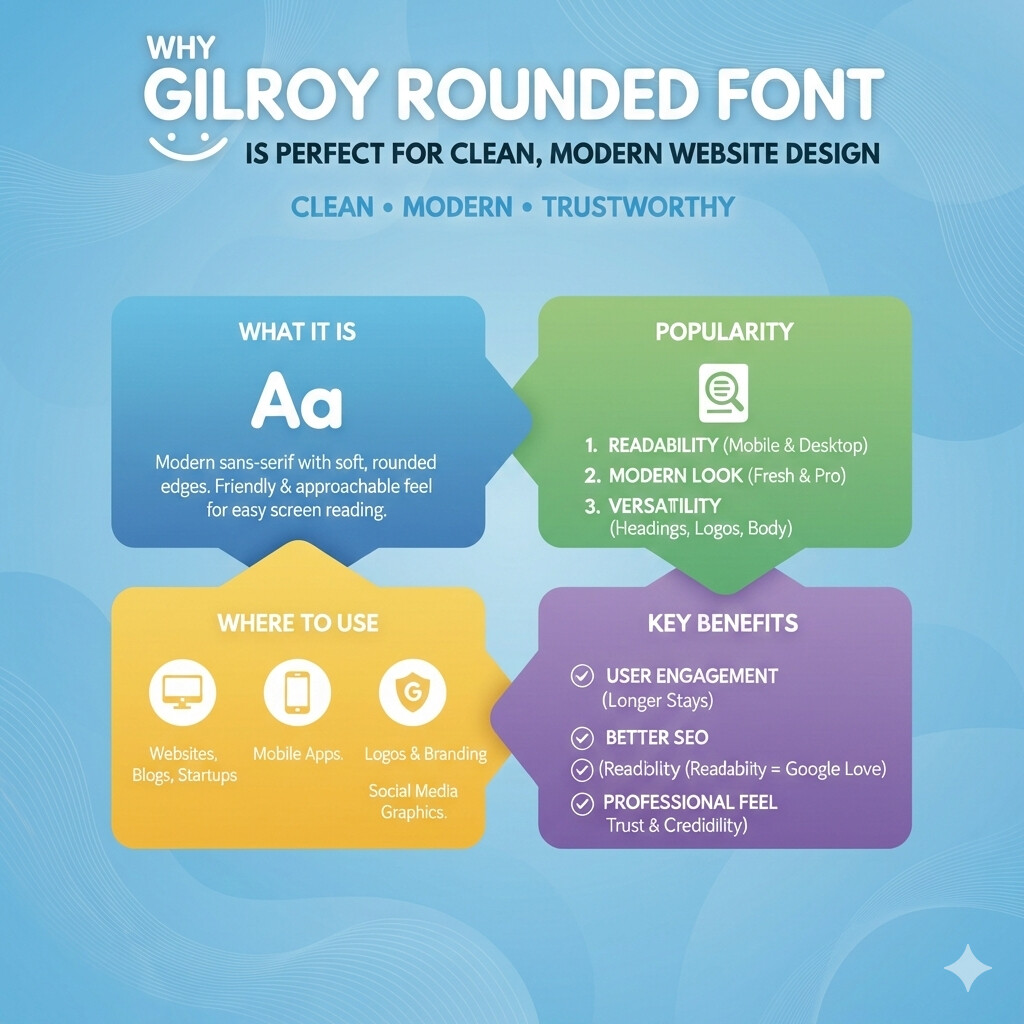
i think gilroy rounded font is one of those fonts that looks simple but feels premium when we actually use it in real projects. When I first started working on website design I was confused about fonts. That is when I found gilroy rounded font and honestly it changed the way I design.
We are living in a digital world where fonts matter a lot. If the font is soft, clean and friendly users stay longer. That is why we should understand the gilroy rounded font properly before using it.
What Is Gilroy Rounded Font
Gilroy rounded font is a modern sans serif font with smooth rounded edges. The letters are soft and clean which makes reading easy on screens. The rounded style removes sharp corners and gives a friendly feel to the text.
I noticed that when I used gilroy rounded font on landing pages users stayed longer. That showed me that design really affects behavior.
We can say that gilroy rounded font is perfect for modern brands, startups, apps and websites that want a clean and trustworthy look.
Why Gilroy Rounded Font Is So Popular
There are many reasons why gilroy rounded font is popular today.
The first reason is readability. The font is easy to read on mobile and desktop screens.
The second reason is its modern look. Many designers want a font that feels fresh and professional.
The third reason is versatility. We can use it for headings, buttons, logos and body text.
I think if a font can be used in many places then it saves time and effort.
We should choose fonts that work everywhere and gilroy rounded font does that well.
My Personal Experience With Gilroy Rounded Font
When I was working on my first tech blog I was using a default font. I decided to test gilroy rounded font after seeing it on a SaaS website.
After changing the font I saw a clear difference. The site looked more friendly and professional. Text felt smooth and users gave better feedback.
That experience taught me that fonts are not just decoration. They are part of communication.
If we want users to trust us we should use fonts that feel clean and honest.
Where You Can Use Gilroy Rounded Font
Gilroy rounded font can be used in many design areas.
Websites
I think gilroy rounded font is perfect for websites especially blogs, startups and portfolios. The rounded edges make long reading easy and pleasant.
Mobile Apps
Mobile screens need clear fonts. Gilroy’s rounded font works great because letters are well spaced and smooth.
Logos And Branding
If a brand wants a friendly modern image this font is a great choice. Many modern brands use rounded fonts to feel approachable.
Social Media Graphics
Text on social media should be easy to read quickly. Gilroy’s rounded font helps catch attention without hurting the eyes.
Gilroy Rounded Font Vs Other Rounded Fonts
There are many rounded fonts available but the gilroy rounded font stands out.
Gilroy’s rounded font keeps a balance between professional and friendly.
Gilroy rounded font works for both serious and casual projects.
That balance is the main reason I prefer it over others.
How To Choose The Right Weight Of Gilroy Rounded Font
Gilroy’s rounded font comes in different weights like light regular and bold.
For body text I think regular weight works best.
For headings bold weight gives strong focus.
We should keep it simple and consistent.
Common Mistakes When Using Gilroy Rounded Font
I have made these mistakes before so I want to help you avoid them.
Using very small font size Using too many font weights Using low contrast colors Using it without checking license
If we avoid these mistakes the font will perform much better.
Who Should Use Gilroy Rounded Font
Gilroy rounded font is ideal for Bloggers Designers Startup owners App developers Content creators
If your goal is clarity and trust then you should consider this font.
What type of font is gilroy rounded font?
I think gilroy rounded font is a modern sans serif font with soft rounded edges that improve readability.
Conclusion
I think gilroy rounded font is a smart choice for anyone who wants a clean, modern and friendly design. Through my own experience I learned that fonts are not just visual elements. They are communication tools.
We should always choose fonts that help users read easily and feel comfortable. Gilroy’s rounded font does exactly that.
If you are building a website app or brand and you want something simple yet powerful then this font is worth using.
That is why I personally recommend gilroy rounded font for modern digital projects.